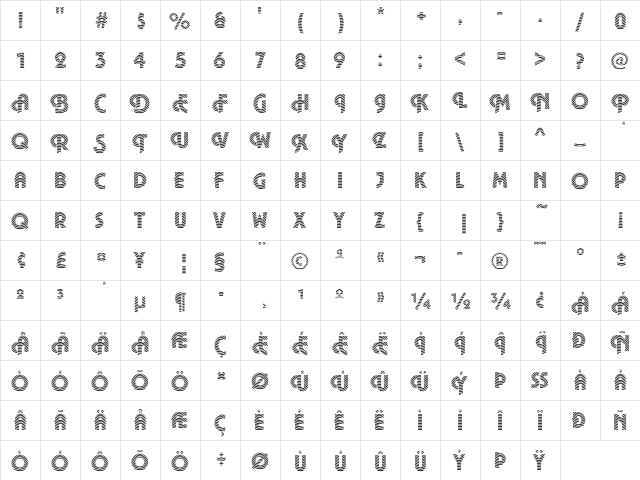
Plaza06 Becker Regular
Design Context for Plaza06 Becker Typeface
Plaza06 Becker is a composed and adaptable typeface that performs quietly and consistently across a wide range of design contexts.